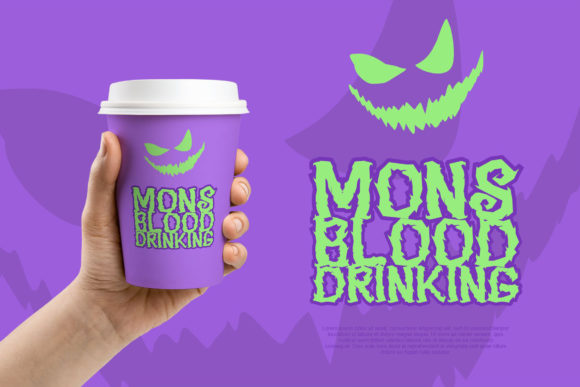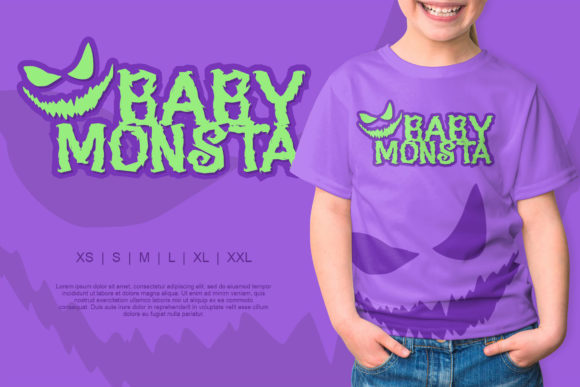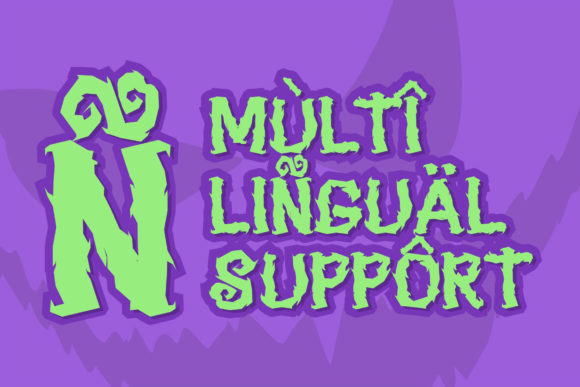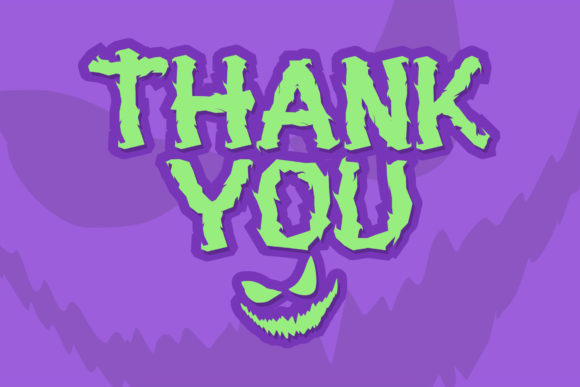
Introduction to Scary Monsta Font
Scary Monsta is an incredibly unique display font.
Add this font to your creative Halloween themed ideas and notice how it will make them stand out .
Key Features of Scary Monsta Font